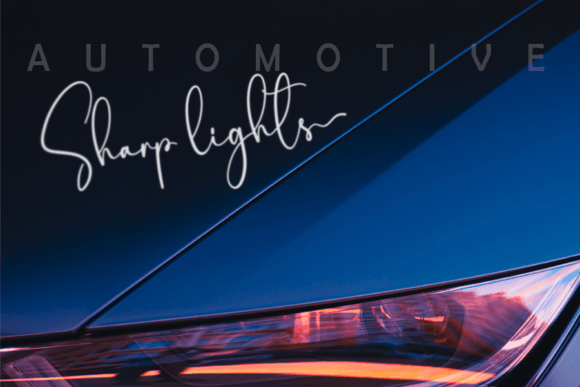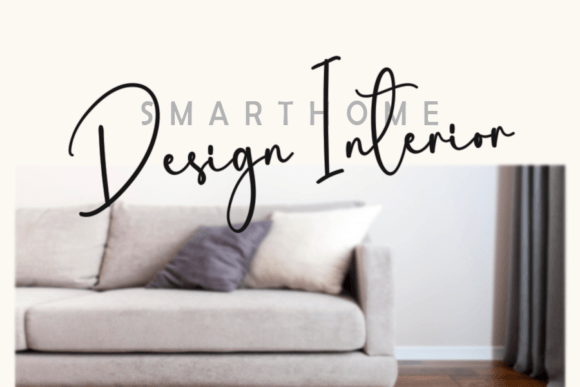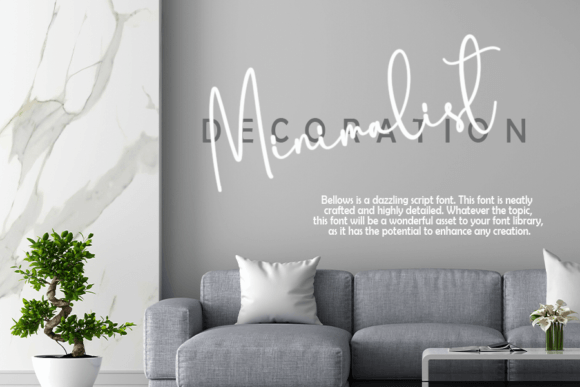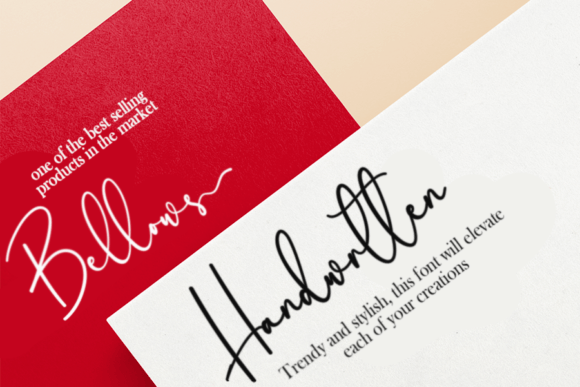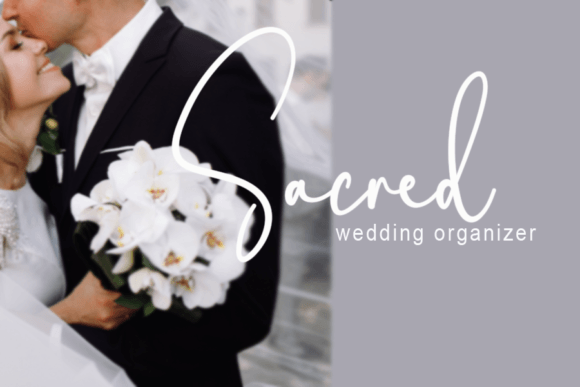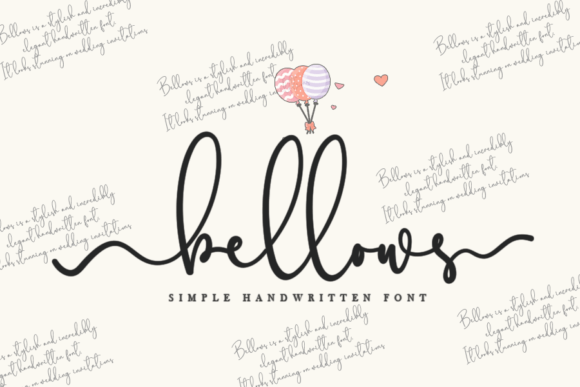
Bellows Font: Elevate Your Designs with a Natural and Stylish Flow
Are you a designer or crafter looking for a font that can add a touch of elegance and sophistication to your projects? Look no further than Bellows Font. This versatile and stylish font is perfect for a wide range of applications, from logos and branding to wedding designs and social media posts.
What is Bellows Font?
Bellows Font is a carefully crafted typeface that boasts a natural and stylish flow. Its unique design makes it stand out from other fonts, giving it a distinctive look that is both modern and timeless. Whether you’re working on a logo, invitation, or product packaging, Bellows Font is the perfect choice.
Key Features of Bellows Font
• Natural and Stylish Flow: Bellows Font has a unique, hand-crafted feel that gives it a natural and stylish flow.
• Versatile: This font is perfect for a wide range of projects, from logos and branding to wedding designs and social media posts.
• Elegant and Sophisticated: Bellows Font adds a touch of elegance and sophistication to any design.
• Easy to Read: Despite its stylish design, Bellows Font is easy to read, making it perfect for body text and headlines.
Perfect for Many Different Projects
Bellows Font is a versatile font that can be used for many different projects, including:
• Logos and Branding: Create a lasting impression with a custom logo that showcases your brand’s personality.
• Invitations: Make your invitations stand out with a beautiful, hand-crafted font.
• Stationery: Add a touch of elegance to your stationery with Bellows Font.
• Wedding Designs: Make your wedding designs truly special with this beautiful font.
• Social Media Posts: Elevate your social media posts with a stylish and sophisticated font.
• Advertisements: Grab attention with a bold and eye-catching headline.
• Product Packaging: Make your product packaging stand out with a unique and stylish font.
• Product Designs: Add a touch of elegance to your product designs with Bellows Font.
• Labels: Create beautiful labels that showcase your brand’s personality.
• Photography: Add a watermark or text overlay to your photos with a stylish and sophisticated font.
• Special Events: Make your special events truly unforgettable with a custom design that features Bellows Font.
Why Choose Bellows Font?
There are many reasons why Bellows Font is the perfect choice for designers and crafters. Here are just a few:
• Unique Design: Bellows Font has a unique design that sets it apart from other fonts.
• High-Quality: This font is crafted with attention to detail, ensuring a high-quality design that will elevate your projects.
• Versatile: This font can be used for a wide range of projects, making it a great addition to any design library.
Bellows Font is a versatile and stylish font that is perfect for designers and crafters. Its natural and stylish flow makes it a great choice for a wide range of projects, from logos and branding to wedding designs and social media posts. With its unique design, high-quality craftsmanship, and ease of use, Bellows Font is a great addition to any design library.